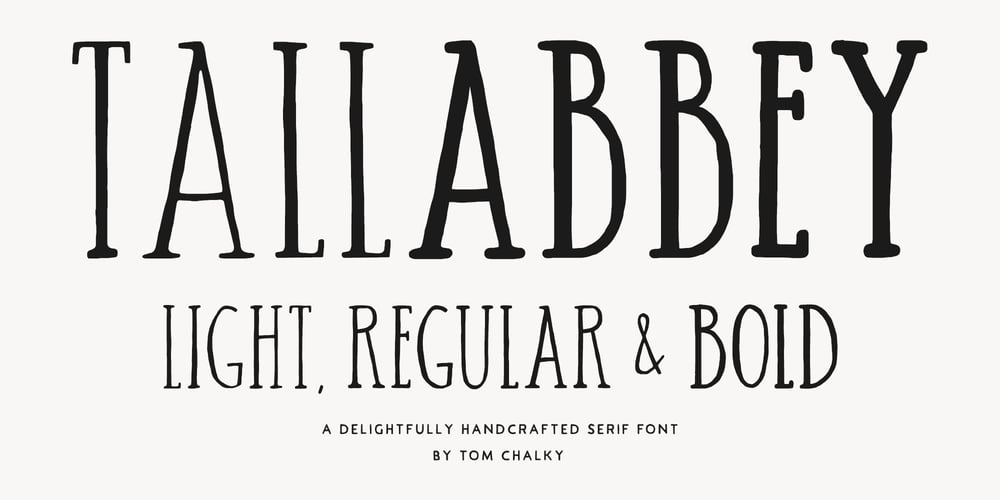
TC Tall Abbey Serif Font Family was designed by Tom Chalky and published by Tom Chalky. TC Tall Abbey Serif contains 3 styles and family package options. Proudly introducing ‘TC Tall Abbey Serif’ – A quirky, tall, authentic, and warm font family full of perfect imperfections and personality. Oozing all the joys of handwritten typography, Tall Abbey effortlessly infuses a human touch into our digital world and your design projects.An entirely uppercase typeface where the lowercase glyphs offer slight variations of its counterpart, improving the handwritten effect. Psst! If you prefer the sans-serif style, we do offer Tall Abbey Sans!